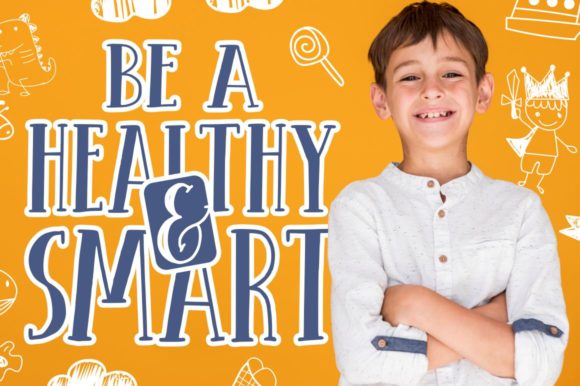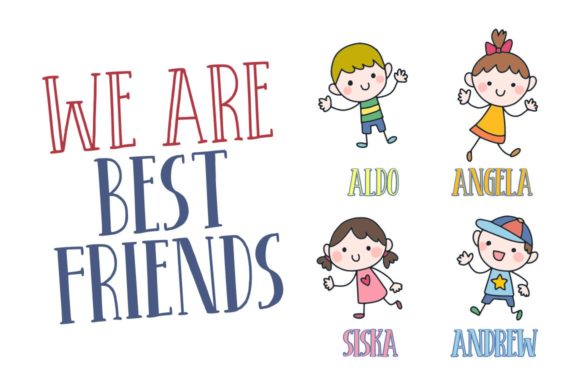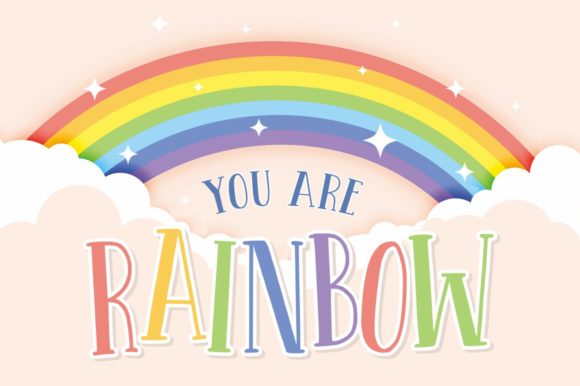
Introduction to Hollyday Font
Hollyday is a playful and modern display font with a unique style.
Get inspired by its friendly charm .
Key Features of Hollyday Font
Why Choose Hollyday Font?
Hollyday Font offers exceptional quality and versatility, making it a valuable addition to your design toolkit. Whether you’re creating for personal projects or commercial use, Hollyday Font delivers professional results.